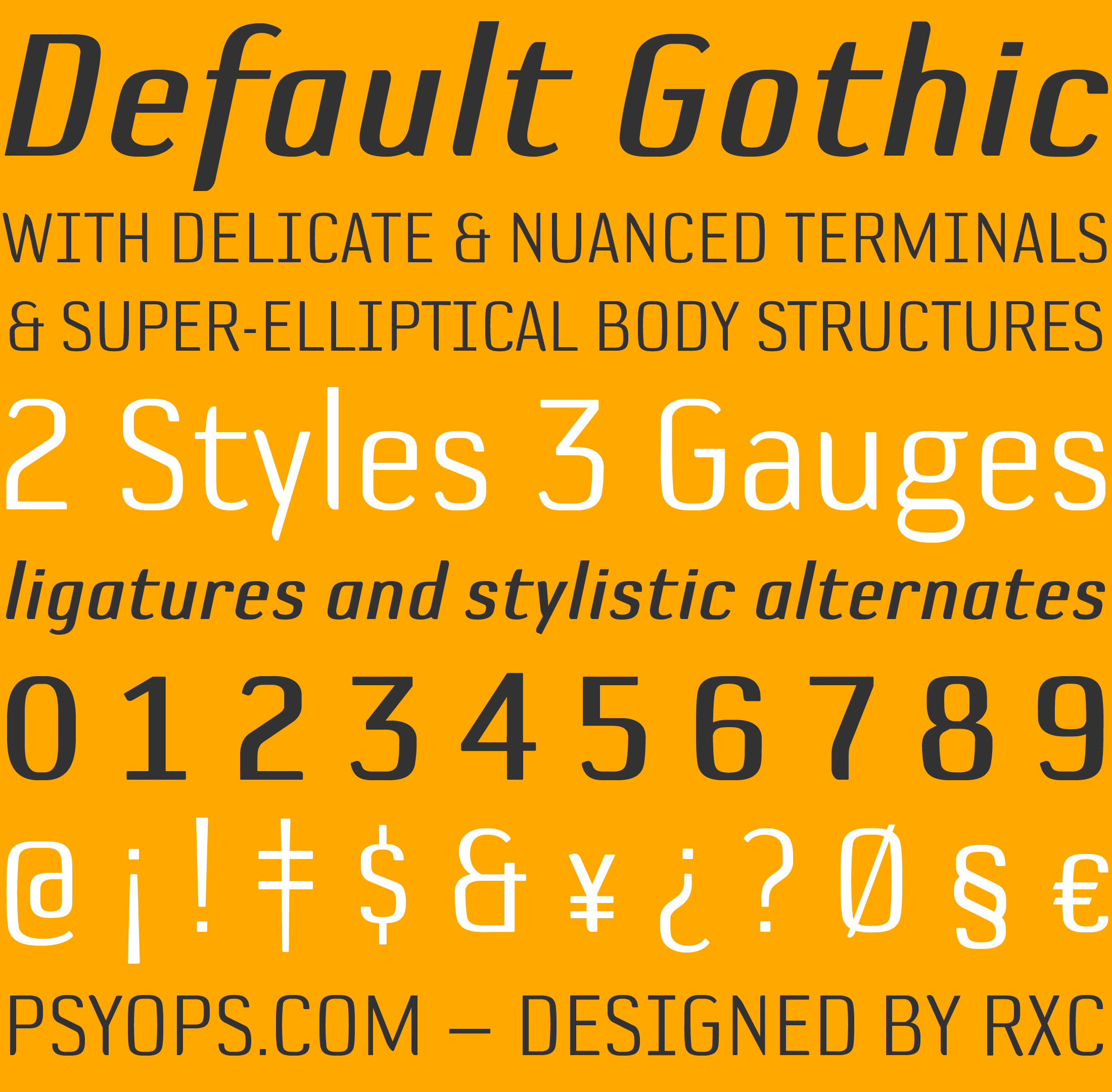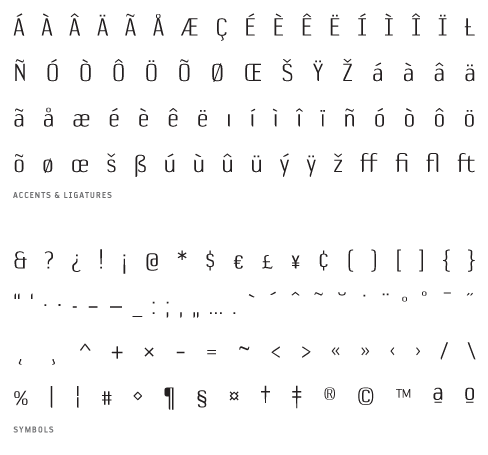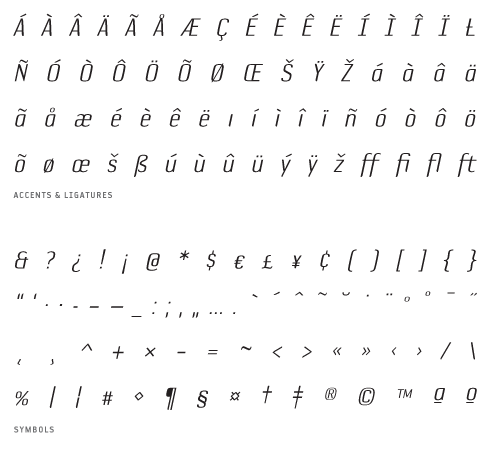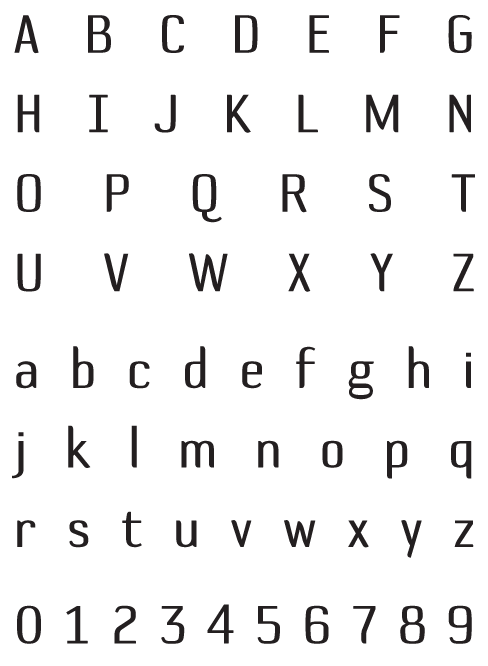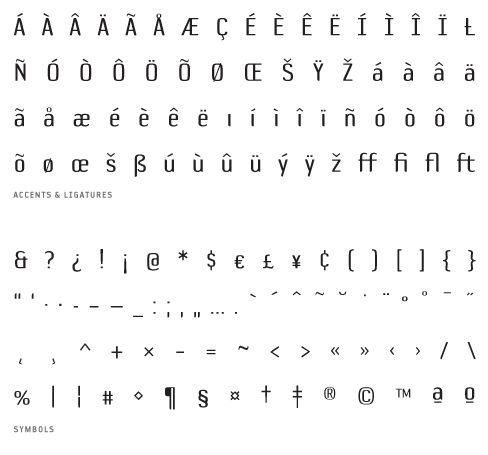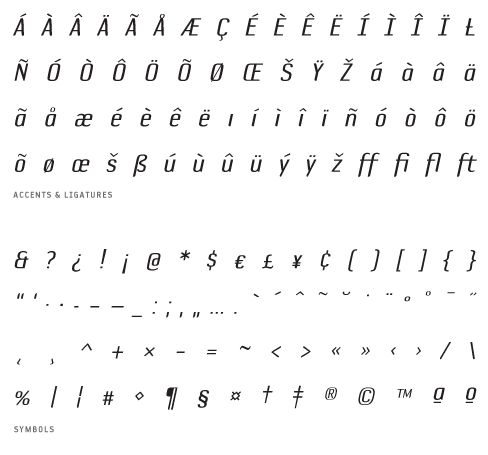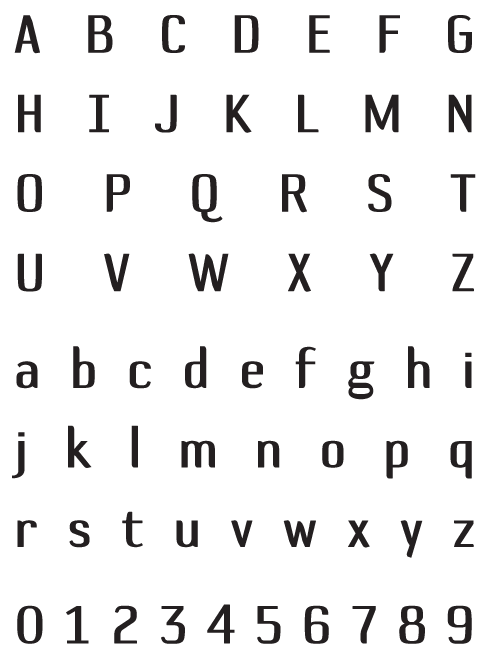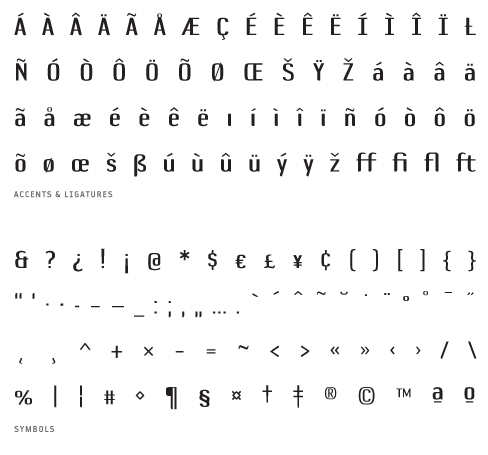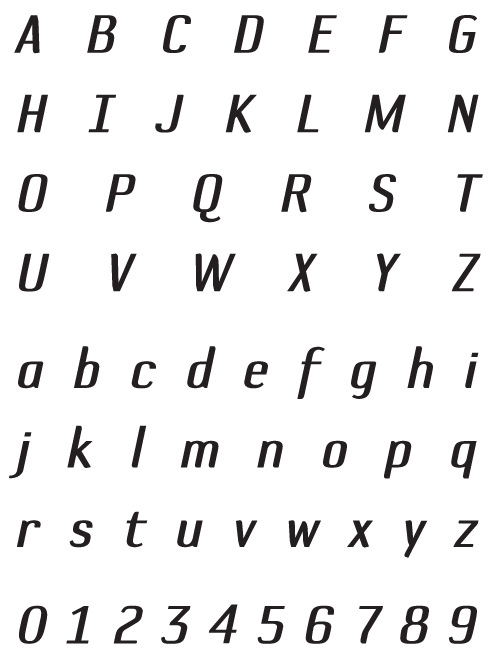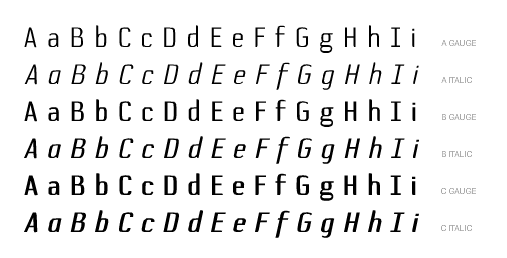
DEFAULT GOTHIC DESIGNED BY RXC
Default Gothic [1996] finds its initial inspiration in the look of Apple’s Chicago system font (by Susan Kare) — particularly the distinctive ‘C’ in the scalable version of the font (by Bigelow & Holmes). The similarity doesn’t go much further, however, as Default Gothic embodies more delicate and nuanced terminals, super-elliptical body structures, and a narrower aspect.
Each Default Gothic font contains: Western and Eastern European Characters, Ligatures, Stylistic Alternates, and more.